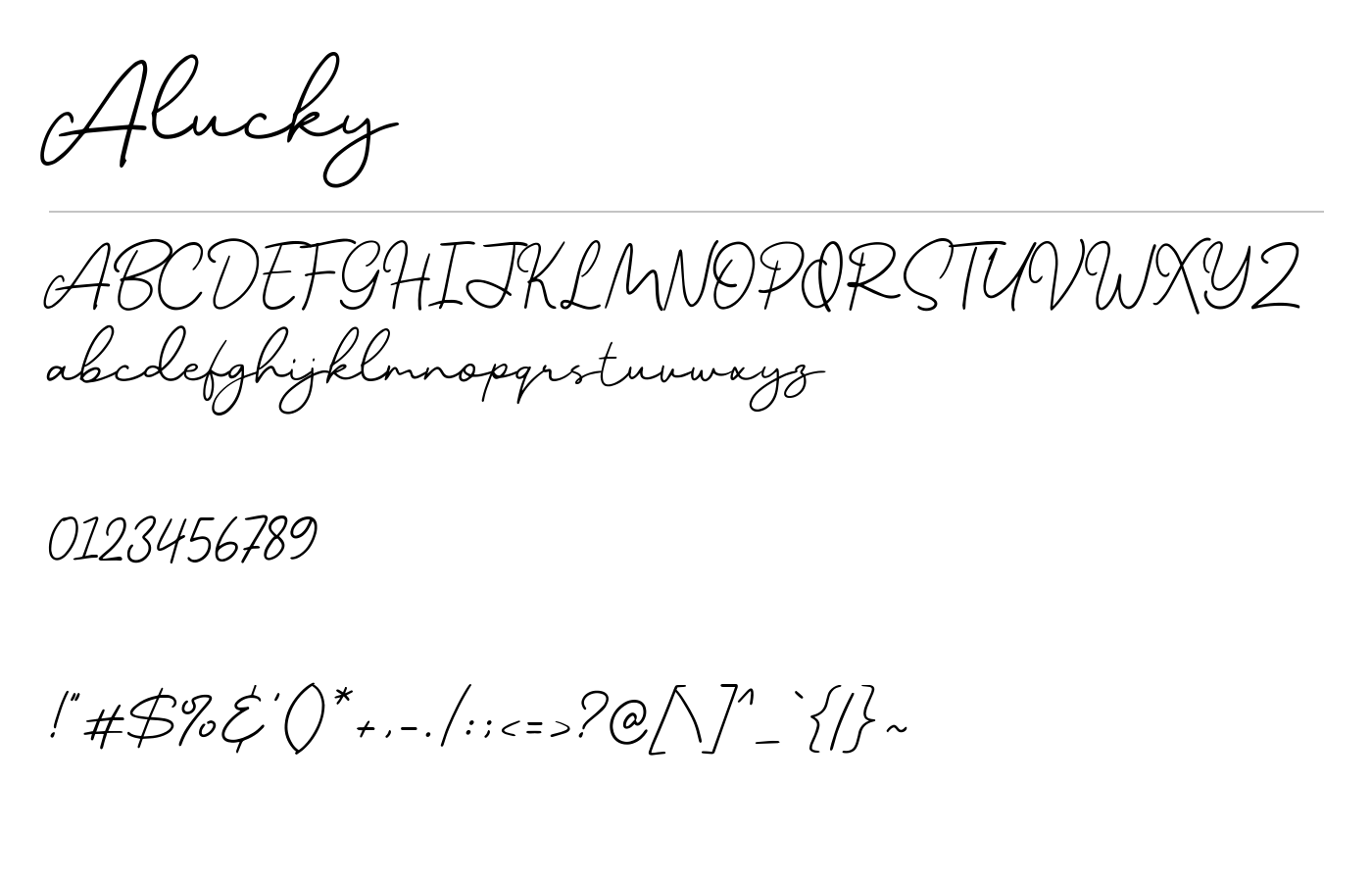
Alucky is a delicate, handwritten script font that features elegant, flowing letterforms with a light weight and narrow width. Its smooth, cursive strokes create a personal and graceful feel, making it perfect for invitations, branding, and any design that needs a touch of sophistication and warmth. This font works well in both headlines and short text, adding a stylish and approachable charm to various creative projects.
Alucky Font
About Alucky Font